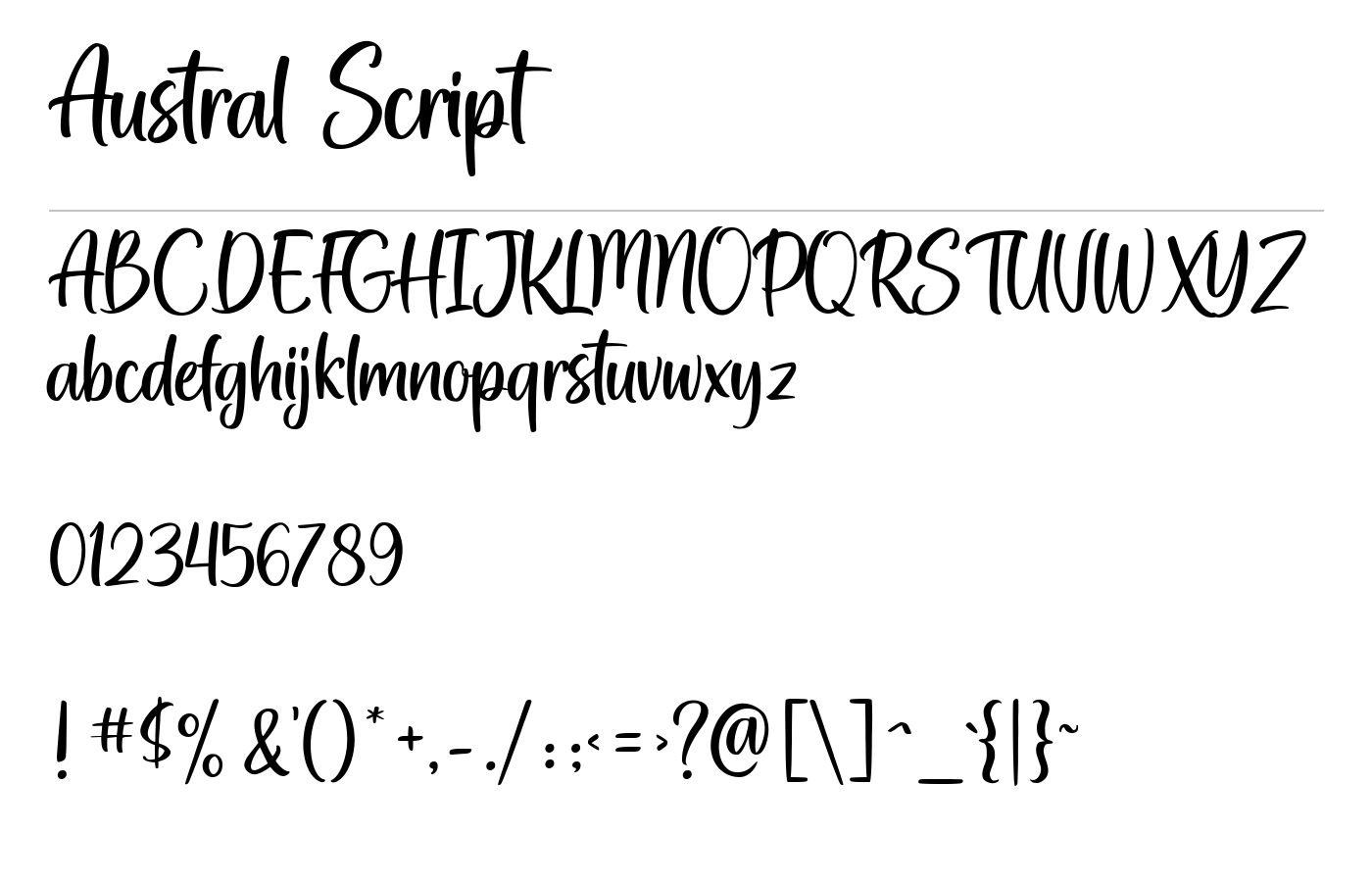
Austral Script is a lively and modern handwritten script font with a tall x-height and smooth, flowing strokes that create an inviting, casual feel. Its slender yet consistent weight and clear letterforms make it perfect for branding, invitations, and creative projects that want to communicate friendliness with a touch of elegance. This font works especially well in headlines and logos where personality and readability are key.
Austral Script Font